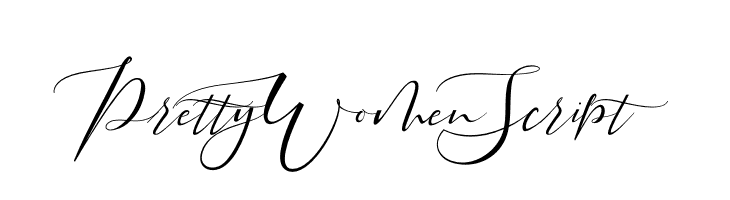
A sophisticated script font with fluid, connected strokes and elegant curves.
An elegant script font with flowing, calligraphic lines and sophisticated swashes.
A playful, elegant handwritten script with flowing, cursive letters.
An elegant and flowing script font with ornate uppercase and smooth lowercase letters.